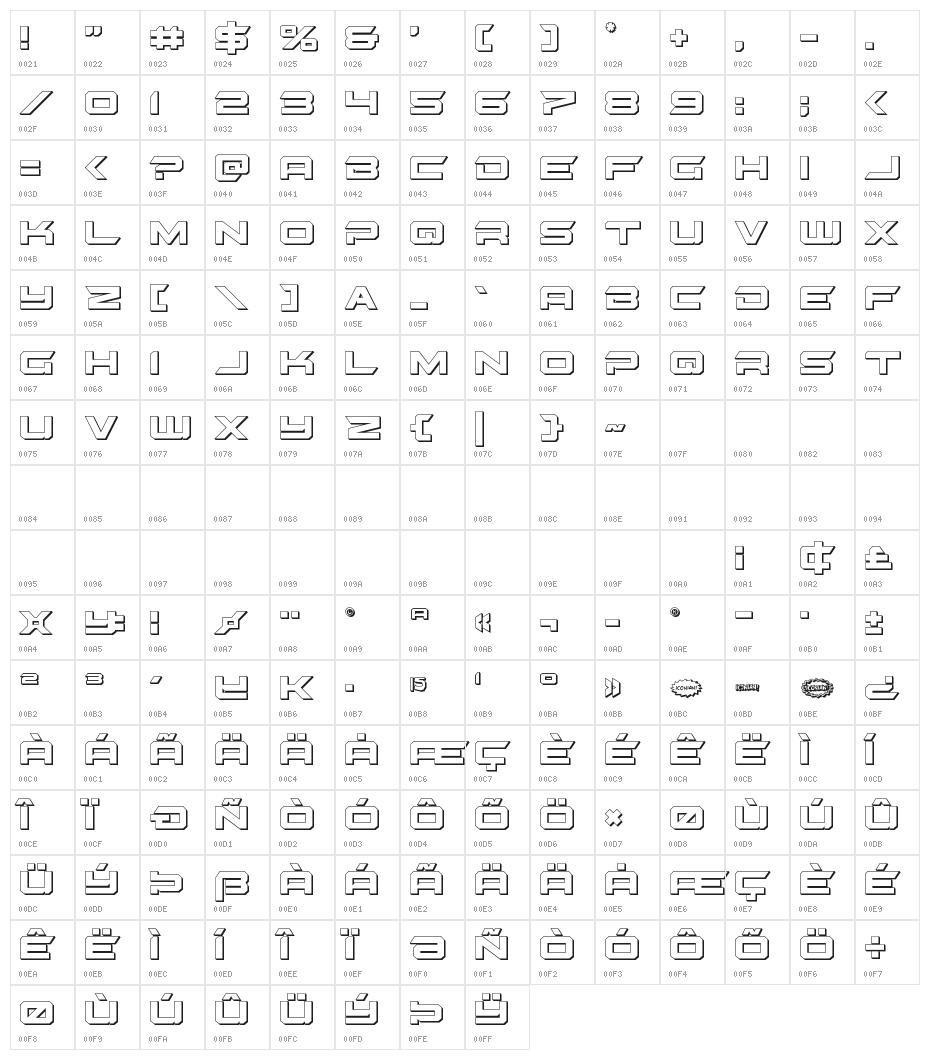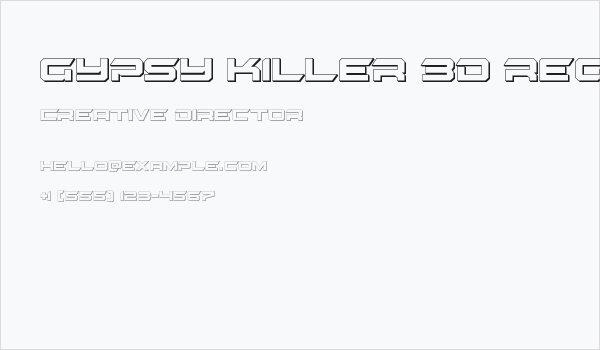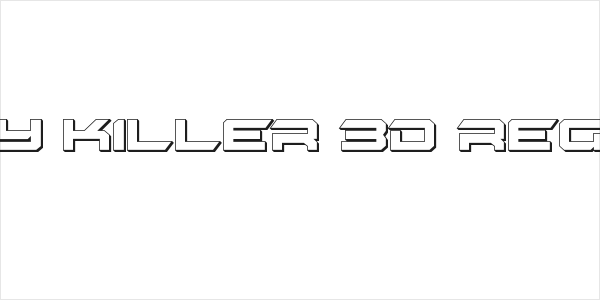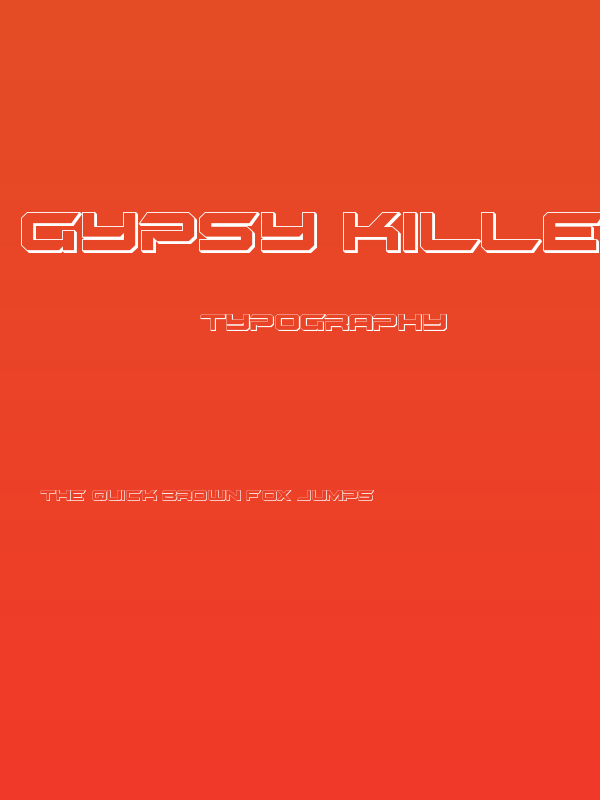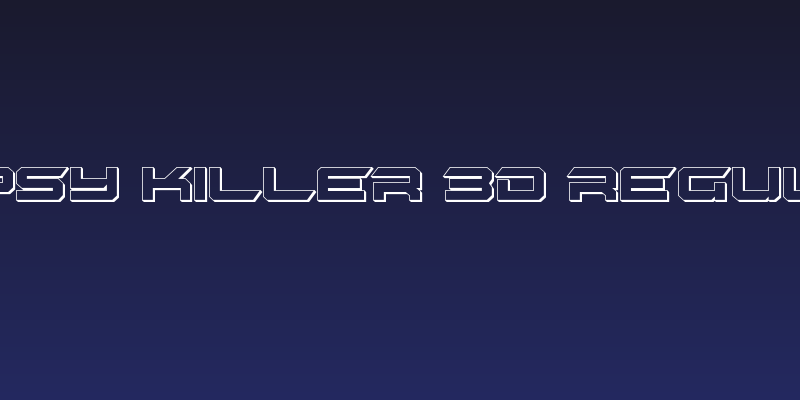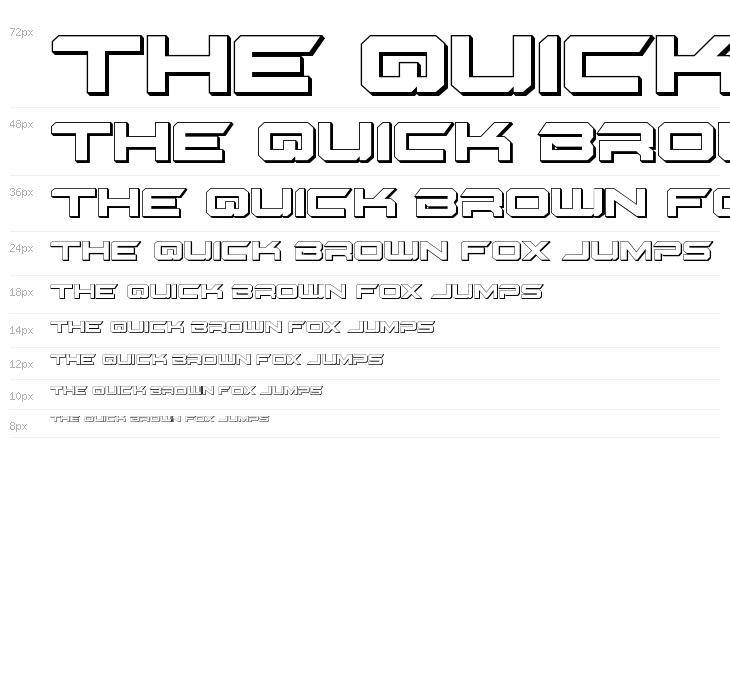
Gypsy Killer 3D Regular Font
Gypsy Killer 3D Regular Description
This font features a bold, three-dimensional design with a futuristic and angular appearance. The characters are outlined, creating a hollow effect that adds depth and visual interest. The geometric shapes are consistent throughout, with sharp edges and clean lines that give it a modern and tech-inspired look. The uppercase and lowercase letters maintain a uniform style, while the numerals and special characters complement the overall aesthetic. This font is ideal for projects that require a strong, impactful presence.
| Proposed Projects | Ideal for sci-fi themed posters, video game titles, tech branding, and futuristic event invitations. |